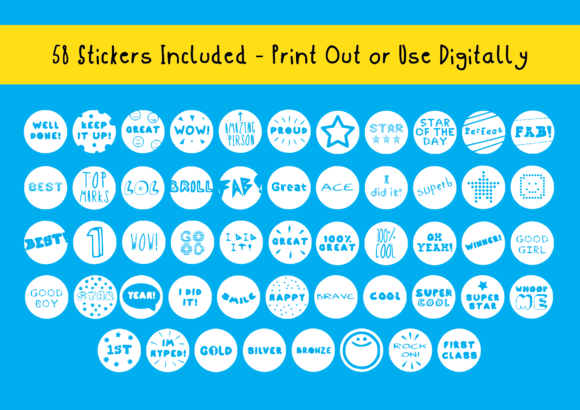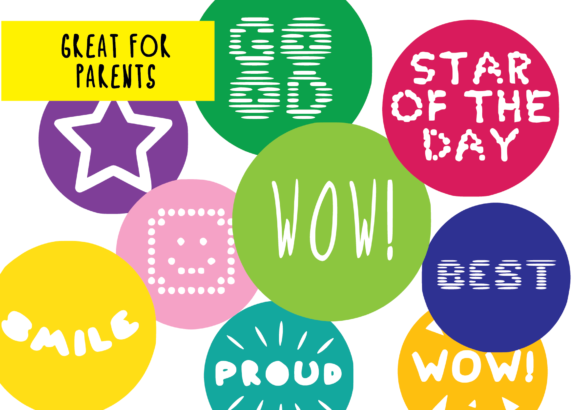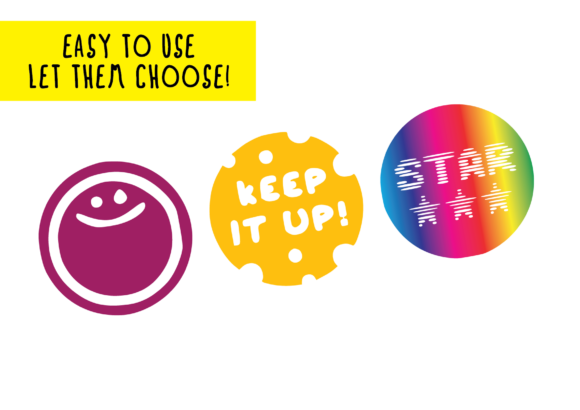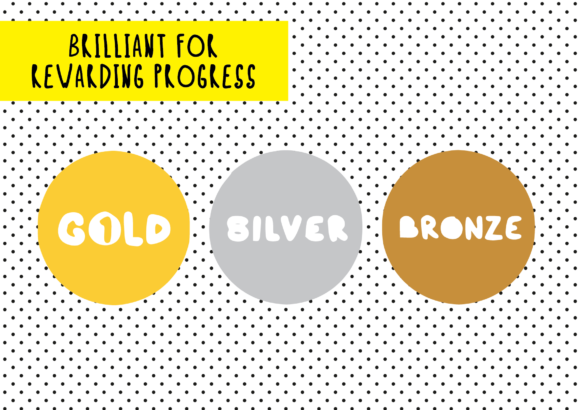
About Good Job Sticker Pack Font
The “Good Job Sticker Pack” is a fantastic dingbats set that brings a fun and playful element to office-themed crafts. This sticker pack is designed to add a touch of positivity and encouragement to various projects. Here are some ways you can make use of this delightful dingbats set:
1. Scrapbooking: Incorporate the “Good Job” stickers into your office-themed scrapbooking projects. Use them to highlight achievements, milestones, or memorable moments in your work or professional life.
2. Planners and Journals: Enhance your planners or journals with these stickers. Use them to mark completed tasks, celebrate accomplishments, or simply add a cheerful touch to your daily planning.
3. Stationery and Cards: Design personalized stationery or greeting cards for colleagues, employees, or clients. Add the “Good Job” stickers as a playful element to express appreciation or acknowledge a job well done.
4. Office Decor: Spruce up your office space with creative displays using these stickers. Stick them on bulletin boards, whiteboards, or office supplies to create an uplifting and motivating environment.
5. Digital Projects: If you’re working on digital designs or presentations, incorporate the “Good Job” stickers as digital elements. They can be used as badges, icons, or stickers within your designs to add a touch of positivity and recognition.
Remember to unleash your creativity and have fun with these stickers! They can serve as a reminder to celebrate accomplishments, encourage others, and foster a positive work environment.